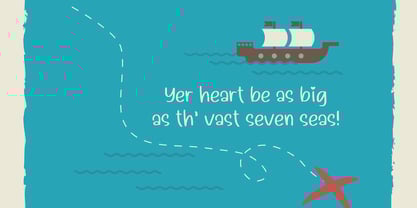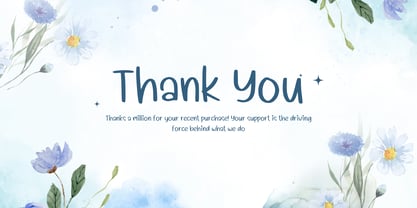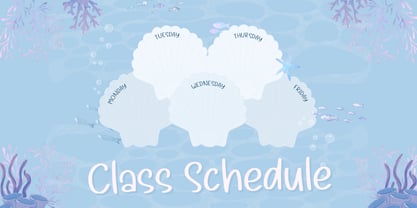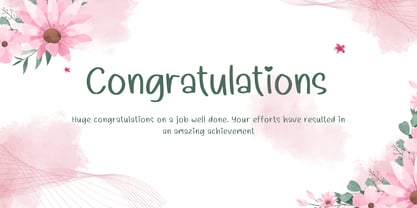
Lautan Kasih
by Aisyah
The Lautan Kasih Font Family was designed by Nur Aiysah Amalia and published by Aisyah. Lautan Kasih contains 1 styles. More about this family
Introducing Lautan Kasih, a charmingly delightful font that weaves sweet whimsy into every keystroke. It especially stands out with its adorably heart-shaped "i" dot, directly infusing love into your words. This font is perfect for crafting unique creations, expressing affection in romantic letters, or adding a personalized touch to your business promotions. Lautan Kasih is not just a font, it's an expressive tool for your imagination and creativity.